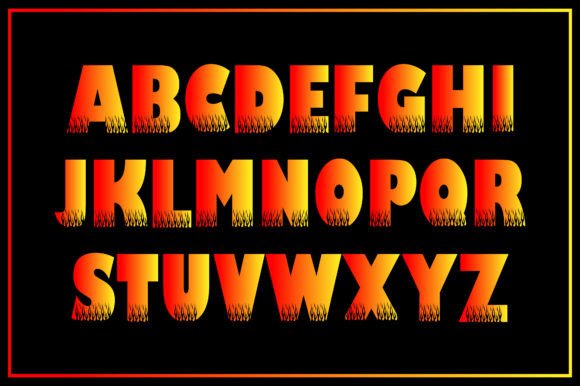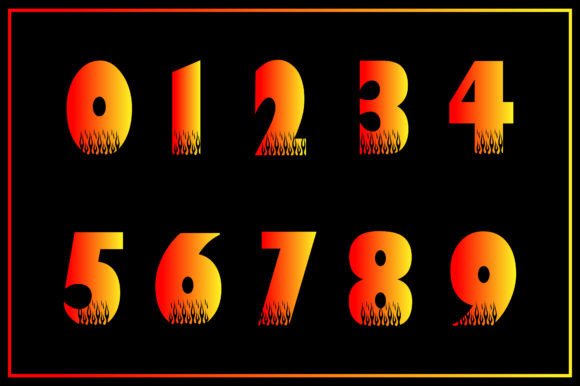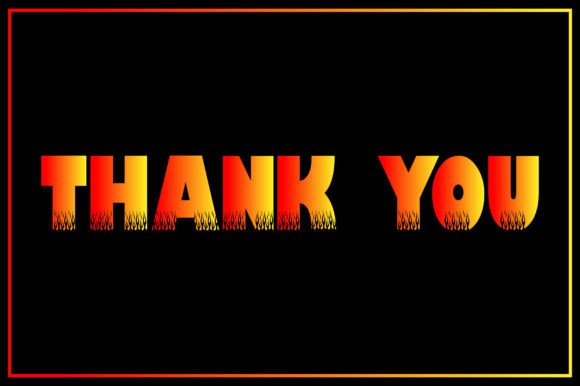
Introducing Flame Font: The Ultimate Decorative Display Font for Designers and Crafters
Are you tired of using the same old fonts in your designs and crafts? Look no further! Flame Font is here to add a spark to your projects. This fun and dynamic decorative display font is perfect for anyone looking to add a touch of excitement and personality to their work. In this article, we’ll dive into the world of Flame Font and explore its features, benefits, and uses.
What is Flame Font?
Flame Font is a decorative display font designed to make a statement. Its unique and playful design makes it perfect for a wide range of projects, from DIY crafts to professional designs. Whether you’re creating a logo, poster, or social media graphic, Flame Font is sure to grab attention and add a touch of whimsy.
Key Features of Flame Font
- Fun and Dynamic Design: Flame Font features a unique and playful design that’s sure to add a spark to your projects.
- Perfect for Decorative Projects: This font is specifically designed for decorative projects, making it perfect for DIY crafts, party invitations, and other creative endeavors.
- Easily Readable: Despite its decorative nature, Flame Font is easily readable, making it perfect for headlines, titles, and short phrases.
- High-Quality Design: Flame Font is designed with high-quality vectors, ensuring that it looks great in any size or resolution.
Benefits of Using Flame Font
So, why should you choose Flame Font for your next project? Here are just a few benefits of using this amazing font:
- Adds Personality to Your Projects: Flame Font adds a touch of personality and whimsy to your projects, making them stand out from the crowd.
- Perfect for Branding and Marketing: This font is perfect for creating eye-catching logos, social media graphics, and marketing materials that grab attention.
- Versatile: This font can be used for a wide range of projects, from digital designs to print materials.
Uses for Flame Font
So, what can you use Flame Font for? The possibilities are endless! Here are a few ideas to get you started:
- DIY Crafts: Use Flame Font to add a personal touch to your DIY crafts, such as party decorations, gift tags, and more.
- Social Media Graphics: Create eye-catching social media graphics with Flame Font, perfect for grabbing attention and driving engagement.
- Logos and Branding: Use Flame Font to create unique and memorable logos and branding materials for your business or personal brand.
- Posters and Flyers: Add a touch of excitement to your posters and flyers with Flame Font, perfect for promoting events, products, or services.